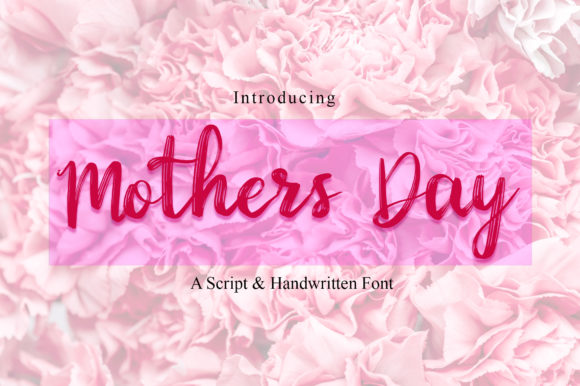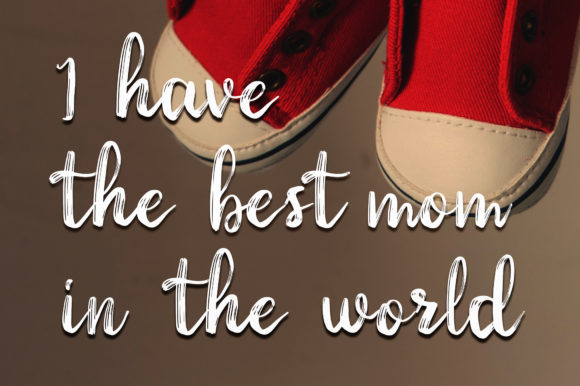
About Mothers Day Font
Mothers Day is a simple, natural and adaptable script font. This versatile font has a wide range of applications ranging from greeting cards to kids’ crafts, and is guaranteed to add a sweet touch to your next design.